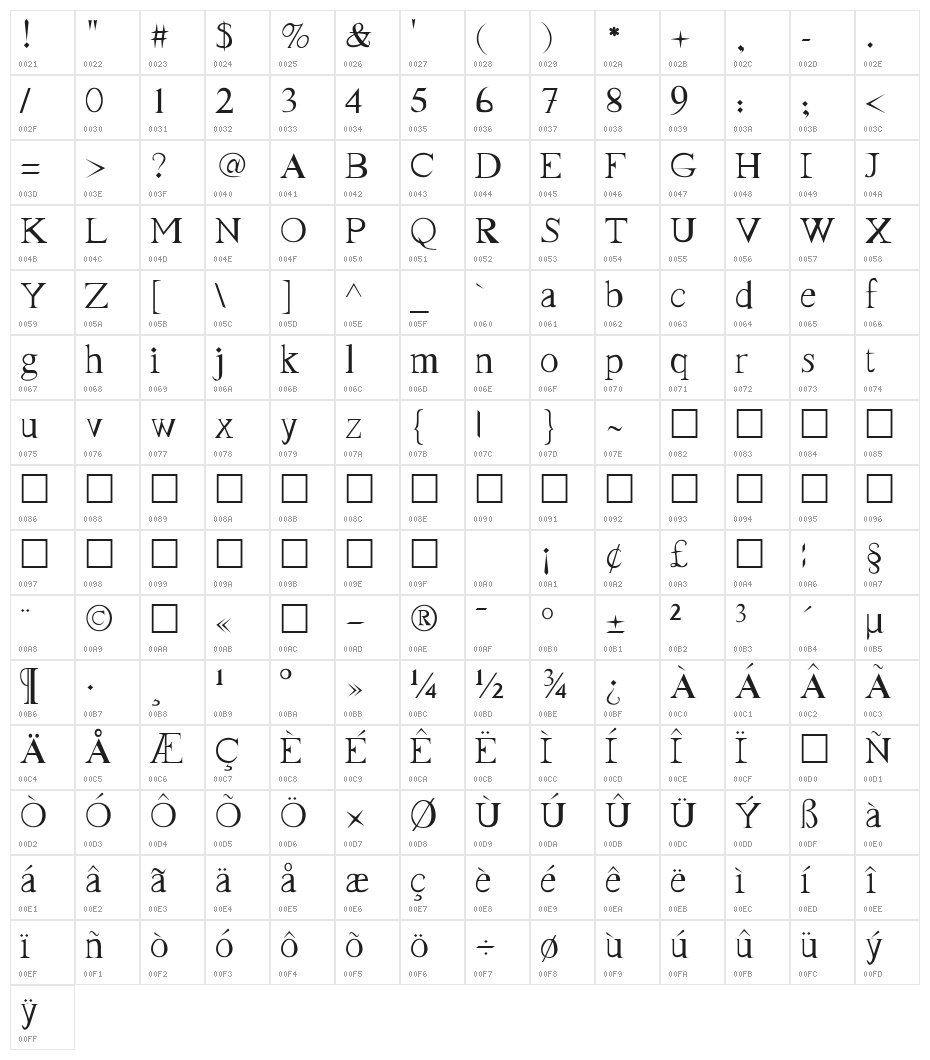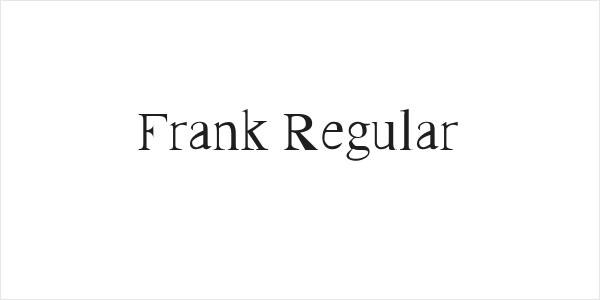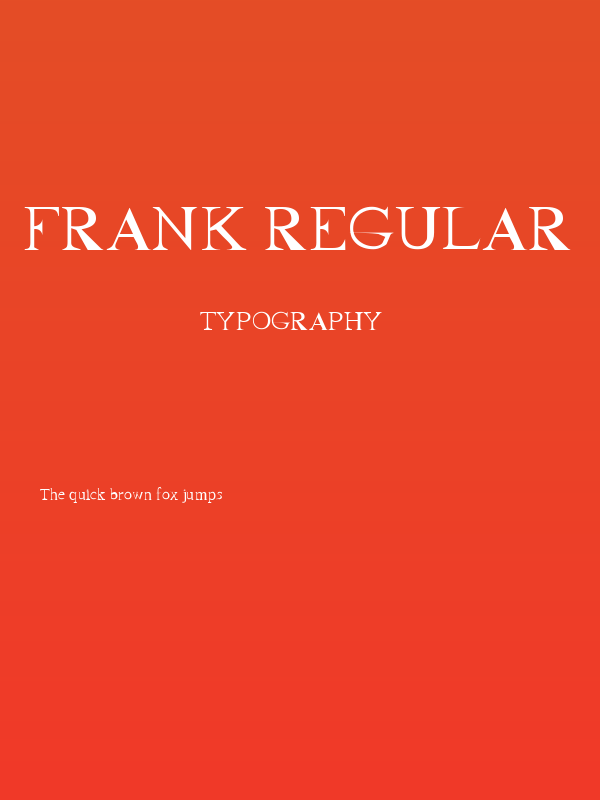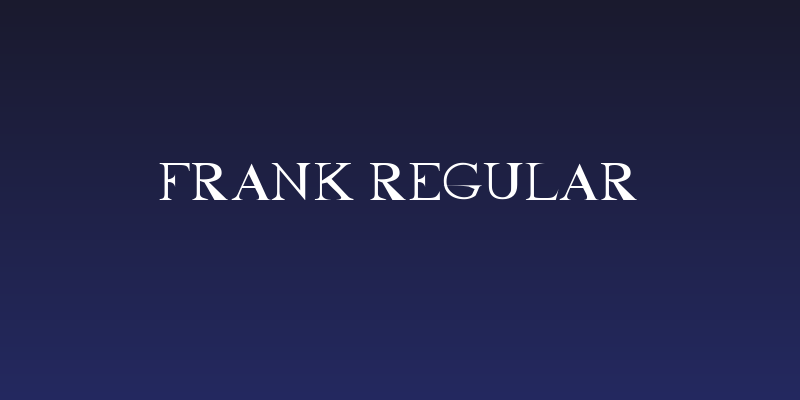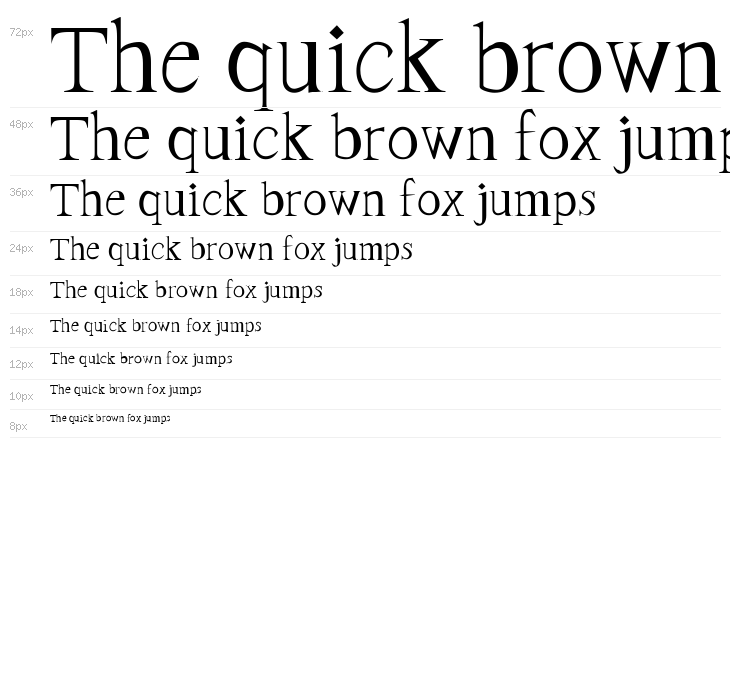
Frank Regular Font
Frank Regular Description
This font exhibits a classic serif style with elegant, sharp serifs and a balanced proportion between thick and thin strokes. The uppercase letters are bold and commanding, while the lowercase letters maintain a graceful flow. The numerals are clear and distinct, ensuring readability. Special characters are designed with the same attention to detail, providing a cohesive look across all glyphs. The overall appearance is sophisticated, making it suitable for formal and professional applications.
| Overall Style | Classic |
| Use Case | Headlines, Body text, Logos |
| Proposed Projects | Ideal for editorial design, book covers, formal invitations, and branding projects that require a touch of elegance. |